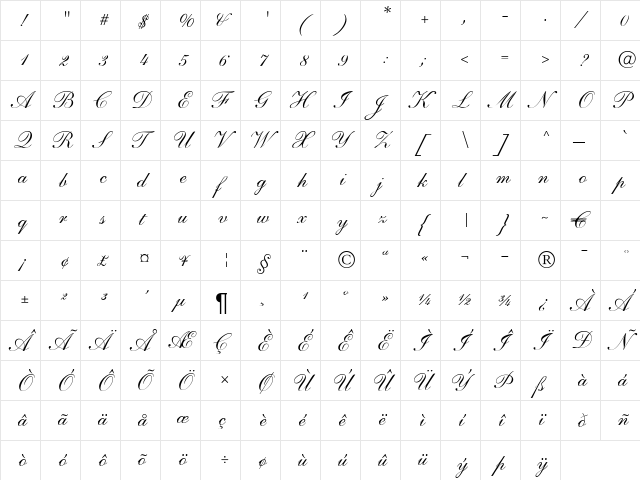
Sherrif Script DB Regular
Design Context for Sherrif Script DB Typeface
Sherrif Script DB flows with the natural rhythm of handwritten lettering, making it ideal for designs that call for warmth and personal expression.
Font Pairing: Combine Sherrif Script DB with a simple geometric sans for maximum contrast — the tension between flowing curves and clean structure is a classic typographic pairing.
Pro Tip: Pair Sherrif Script DB with a clean sans-serif for supporting text. The contrast between fluid script and geometric structure creates an elegant typographic hierarchy.